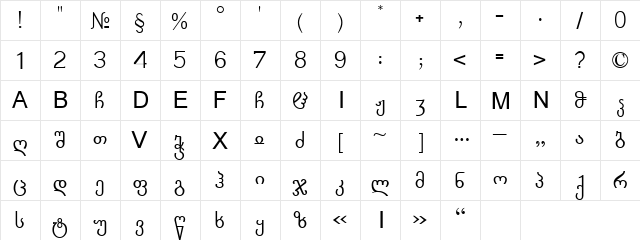
Malula_Ilia NormalA
Design Context for Malula_Ilia Typeface
Malula_Ilia takes a measured approach to typography — its balanced proportions and neutral character make it a reliable workhorse for both digital and print work.